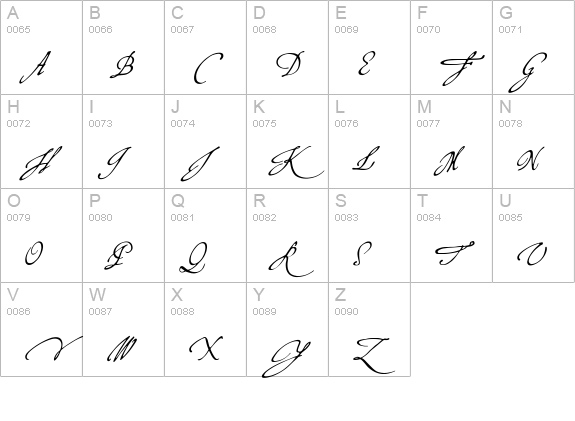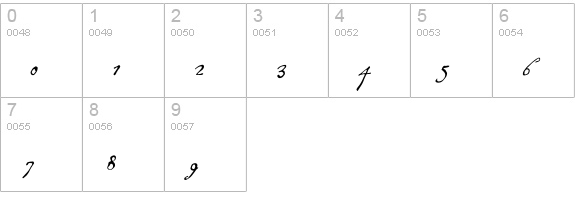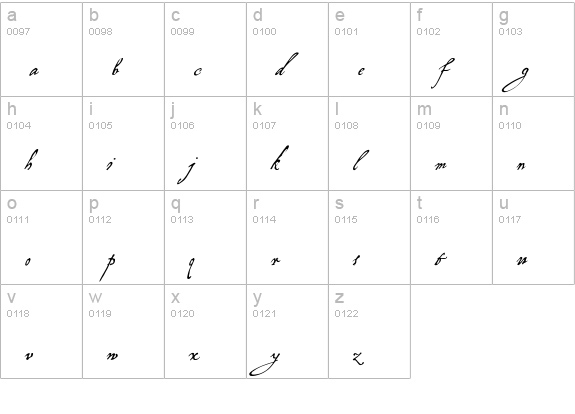
P22Virginian Font Details
P22Virginian font is a stunning display typeface that exudes elegance and sophistication. With its beautifully crafted serifs and graceful curves, this font captures the essence of classic typography while adding a modern twist. Designed with meticulous attention to detail, P22Virginian is perfect for creating eye-catching headlines, logos, and branding materials. Its versatility allows it to be used in various projects, from print designs to web graphics, giving your work a timeless charm. What sets P22Virginian font apart is its incredible readability, making it ideal for both large and small text sizes. Whether it's a magazine article or a book cover, this font ensures that your message is clear and easily digestible. And the best part? P22Virginian font is available for free! You can download it hassle-free from FontsMarket.com, a trusted source for high-quality fonts. This means that you can enjoy the beauty and functionality of P22Virginian without breaking the bank. So, why settle for ordinary fonts when you can elevate your designs with the elegance of P22Virginian? Download it today and unleash your creativity with this captivating typeface.